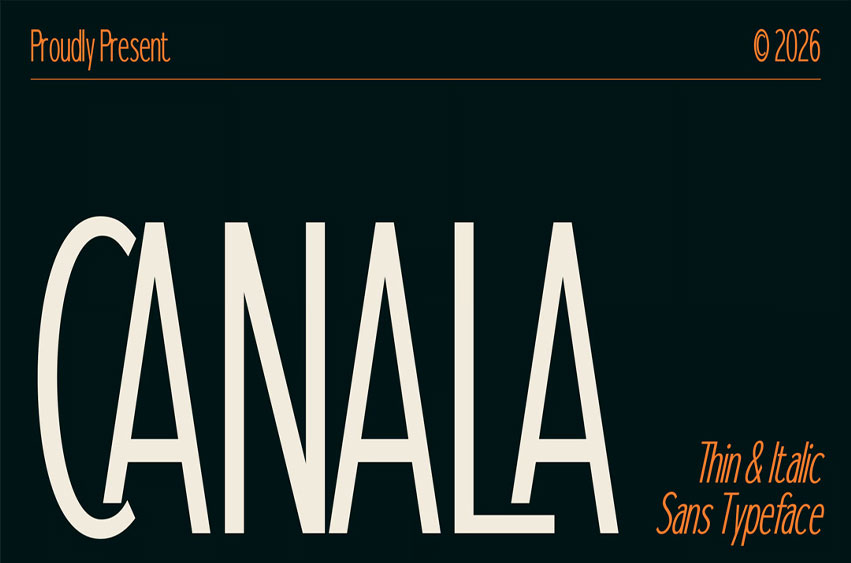
Canala Font is a modern luxury sans typeface designed to bring elegance, sophistication, and timeless appeal to contemporary branding projects. Featuring slender proportions, graceful curves, and refined details, this typeface creates a distinctive visual identity that feels premium without being excessive. Its clean and confident appearance makes it ideal for luxury brands, fashion labels, editorial design, hospitality, beauty products, and upscale packaging.
Crafted to balance style and functionality, Canala Sans comes in Thin and Italic styles, offering designers the flexibility to build sophisticated typographic systems with ease. Featuring 380+ glyphs, multilingual support, and carefully designed ligatures, the typeface adapts seamlessly across both print and digital applications. Whether you’re designing an elegant logo, a fashion campaign, a luxury website, or a premium editorial layout, Canala Sans delivers a refined and memorable visual experience.
Elevate your brand with Canala Sans—a modern luxury typeface that combines simplicity, elegance, and contemporary character to create typography that feels effortlessly premium.